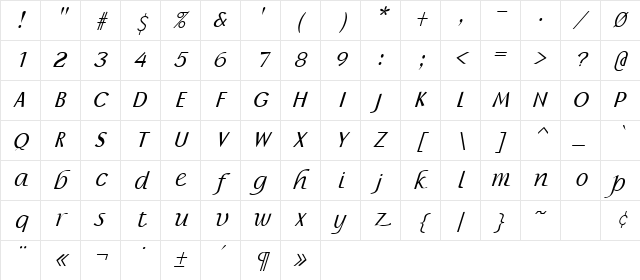
Labdanum Oblique
Design Context for Labdanum
Labdanum is a composed and adaptable typeface that performs quietly and consistently across a wide range of design contexts. The slanted form adds forward momentum and visual energy.